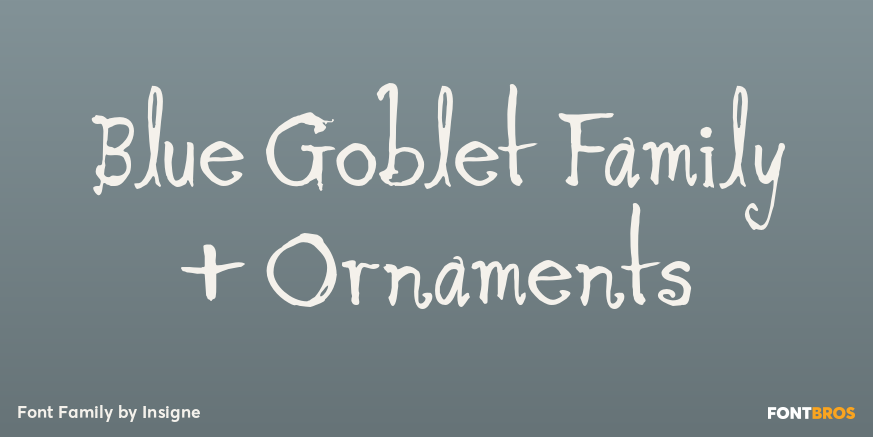
Blue Goblet Family + Ornaments
About Blue Goblet Family + Ornaments
Blue Goblet is a script developed for the pending illustrated children\’s book from Portland Studios, The Blue Goblet. The font has grown to a comprehensive system, with a wide array of ornaments available. Blue Goblet is usable in a wide range of settings,…